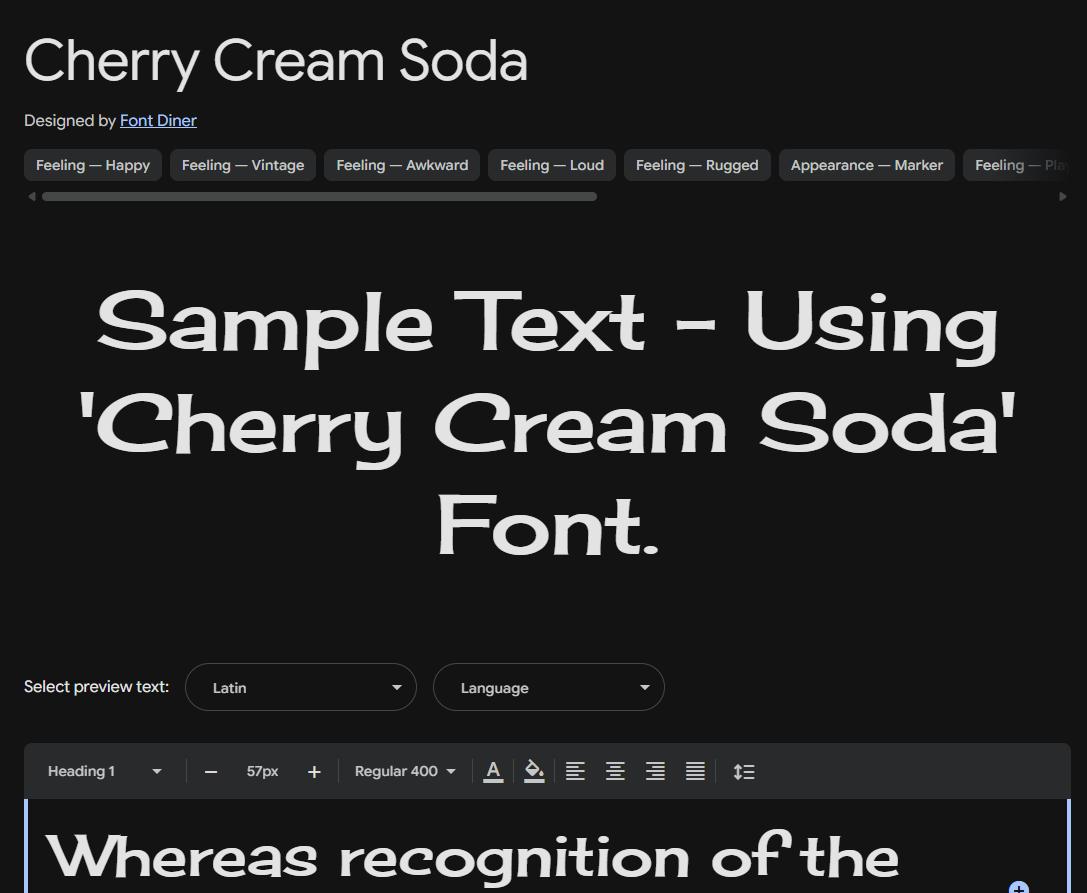
Cherry Cream Soda, a singular-style display typeface engineered by the retro-specialists at Font Diner, leverages a non-conformist rhythm through its bouncy baseline and varying stroke weights to evoke the effervescent charm of mid-century Americana. Architecturally defined by its high x-height and soft, rounded terminals, this typeface optimizes visual hierarchy by blending the informal fluidity of brush-script logic with the structural integrity of a heavy-weighted display face. From a technical standpoint, the font's generous kerning and open counters ensure legibility even at smaller scales, while its specialized glyph contours are meticulously rendered to preserve the organic, hand-lettered aesthetic of 1950s soda shop signage within contemporary digital environments.
Cherry Cream Soda, a distinctive display typeface curated by Font Diner, masterfully synthesizes the tactile grit of traditional wood type with the spontaneous fluidity of a felt-tip marker to establish a visual identity that is simultaneously rugged and happy. Its heavy stroke weights and irregular baseline shifts evoke a vintage, mid-century aesthetic that feels intentionally awkward yet vibrantly active, capturing a loud and wacky energy ideal for high-impact typographic hierarchies. By blending playful, childlike letterforms with a cute, handcrafted charm, the font optimizes semantic resonance across creative layouts, utilizing its unique kerning and idiosyncratic glyph geometry to maintain a spirited rhythm that balances retro nostalgia with a bold, marker-inspired presence.
Cherry Cream Soda, a singular heavyweight display face from Font Diner, is fundamentally unsuitable for high-utility sectors such as medical informatics, legal documentation, or technical engineering due to its exaggerated, asymmetrical stroke modulation and exuberant, non-linear baseline that disrupts saccadic eye movement. Because it lacks a multi-weight type family, it cannot facilitate the complex typographic hierarchy necessary for information-dense environments, and its tight apertures and significant counter-space reduction lead to poor glyph differentiation in small-scale print or low-resolution digital displays. These structural characteristics, while evocative of mid-century kitsch, violate core principles of universal design and WCAG accessibility, making it a liability for any business matter requiring high-speed legibility, sustained reading, or the objective neutrality essential for safety-critical communication.
Cherry Cream Soda pairs seamlessly with mid-century modern aesthetics, vintage diner themes, and playful retro graphic styles. The font's rounded terminals and heavy weight optimize visual weight distribution for designs mimicking 1950s Americana and display advertising.
This font is generally unsuitable for extended body text because its decorative nature hinders readability at smaller point sizes. Technical analysis shows that its low x-height and tight tracking cause significant ink trap issues during high-speed offset printing processes.
Cherry Cream Soda excels in logo design by providing a distinct, nostalgic personality that captures immediate consumer attention. The unique silhouette of its glyphs ensures a high degree of brand memorability when rendered as a scalable vector graphic.
Vibrant pastel palettes, cherry reds, and muted cream tones harmonize perfectly with the inherent retro energy of this typeface. Utilizing high-contrast color pairings prevents the thick stroke weights from losing definition due to chromatic aberration on digital screens.
The bold character of Cherry Cream Soda makes it an excellent choice for grabbing attention in high-traffic digital headline banners. Its display-optimized kerning ensures that the messaging remains legible even at varying viewport resolutions and pixel densities.
This typeface is highly effective for food packaging, particularly for sweets, snacks, and beverage products seeking a friendly, approachable look. The font's soft, rounded apertures trigger a psychological association with flavor sweetness, enhancing the overall appetite appeal of the package design.
Cherry Cream Soda maintains exceptional visual integrity and clarity when scaled up for use on large-format billboards and physical signage. The geometric precision of its Bezier curves prevents aliasing artifacts, ensuring a crisp outline even at extreme magnification.
Cherry Cream Soda is typically too ornate for minimalist branding, as its heavy personality conflicts with the movement's focus on simplicity. The high decorative complexity of its stroke endings disrupts the clean line work required for a strictly modern Swiss-style aesthetic.
Pairing this heavy display font with a thin, neutral sans-serif creates a sophisticated typographic hierarchy through extreme weight contrast. This juxtaposition utilizes the principle of visual tension to guide the viewer's eye between primary headings and secondary metadata.
The substantial weight of Cherry Cream Soda allows it to remain legible even when placed over complex or noisy textured backgrounds. Its robust glyph density ensures that the font maintains its silhouette integrity against the visual interference caused by high-frequency background grain.